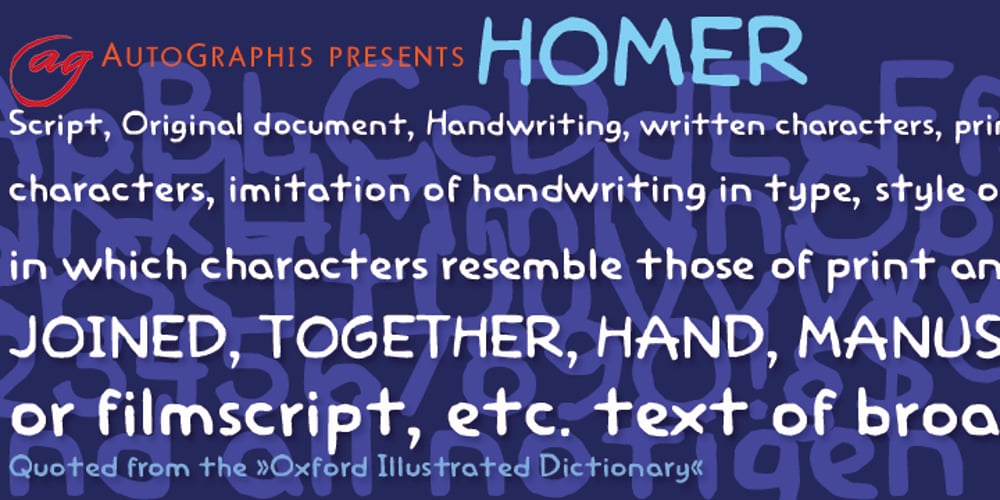
Homer
Homer font
Homer Font Family was designed by Gert Wiescher and published by Autographis. Homer contains 1 styles and family package options. Homer is a very useful handwritten set of comic characters.